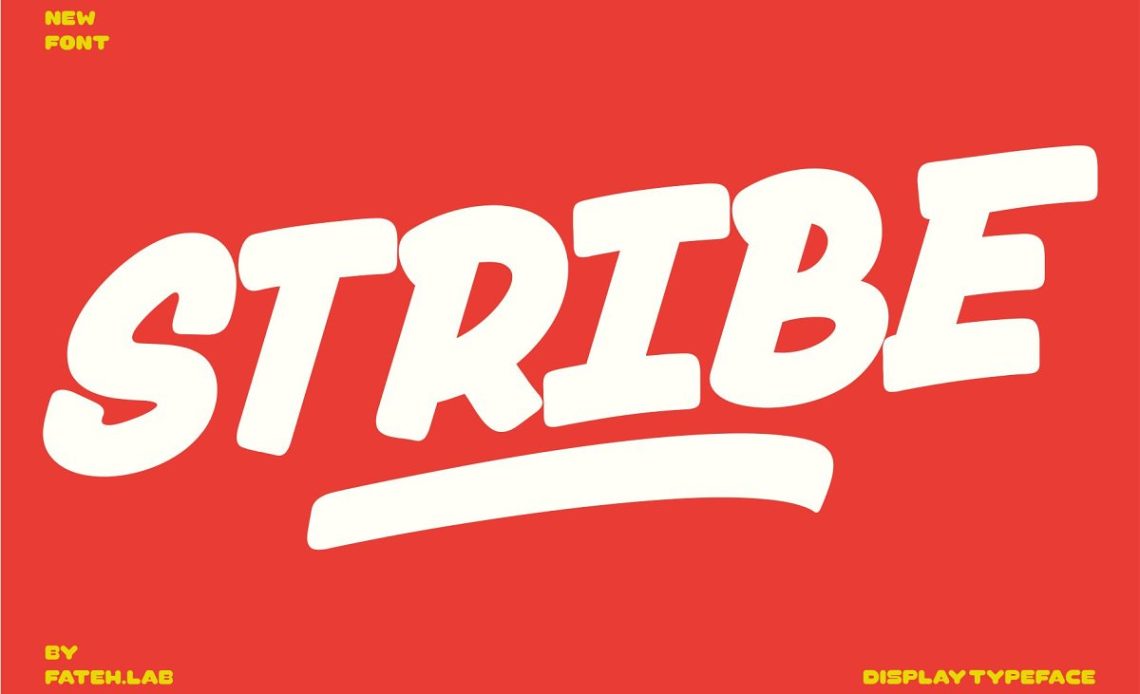
Introducing Stribe, the Urban Display Fonts that will take your creativity to the next level! Created by the talented Wisnu Cipto Wibowo, Stribe is not just any font family, but an amazing work of Street Art that will inspire you to explore your wild ideas.
With Stribe, you will have access to 3 font choices that are both sweet and strong, making it easier for you to choose the perfect font that suits your taste. Say goodbye to font difficulties, and hello to endless possibilities!